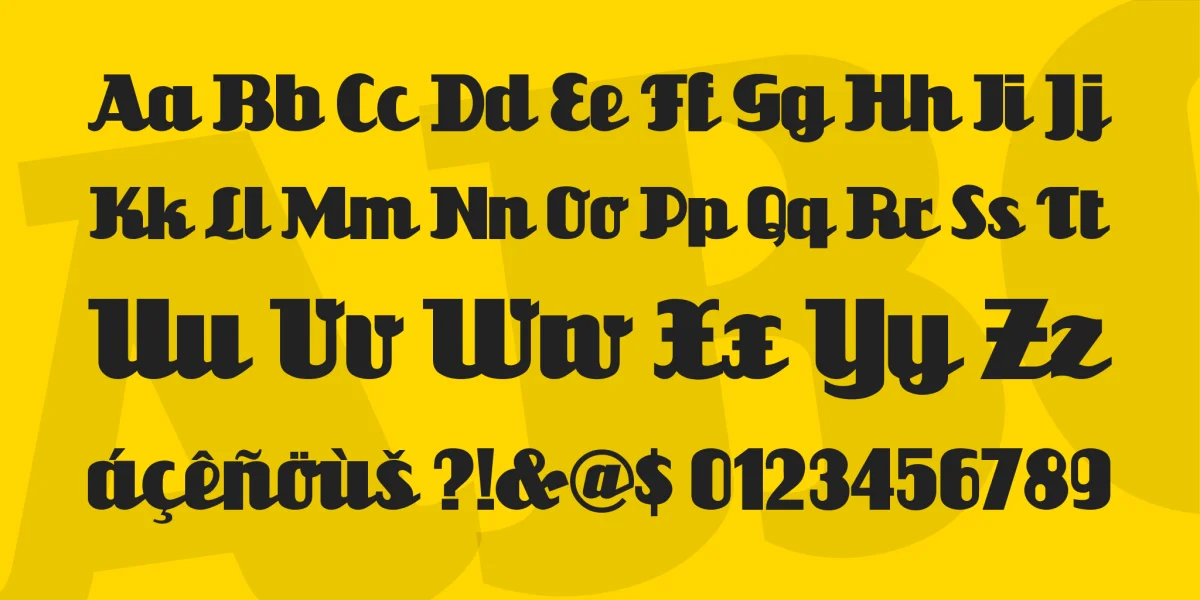
This font has been around for awhile under various names, most often as Einhorn or Salut. Its clean, bold lines and upright posture are sure attention-getters, and its playful letterforms would make Otto Heim proud.